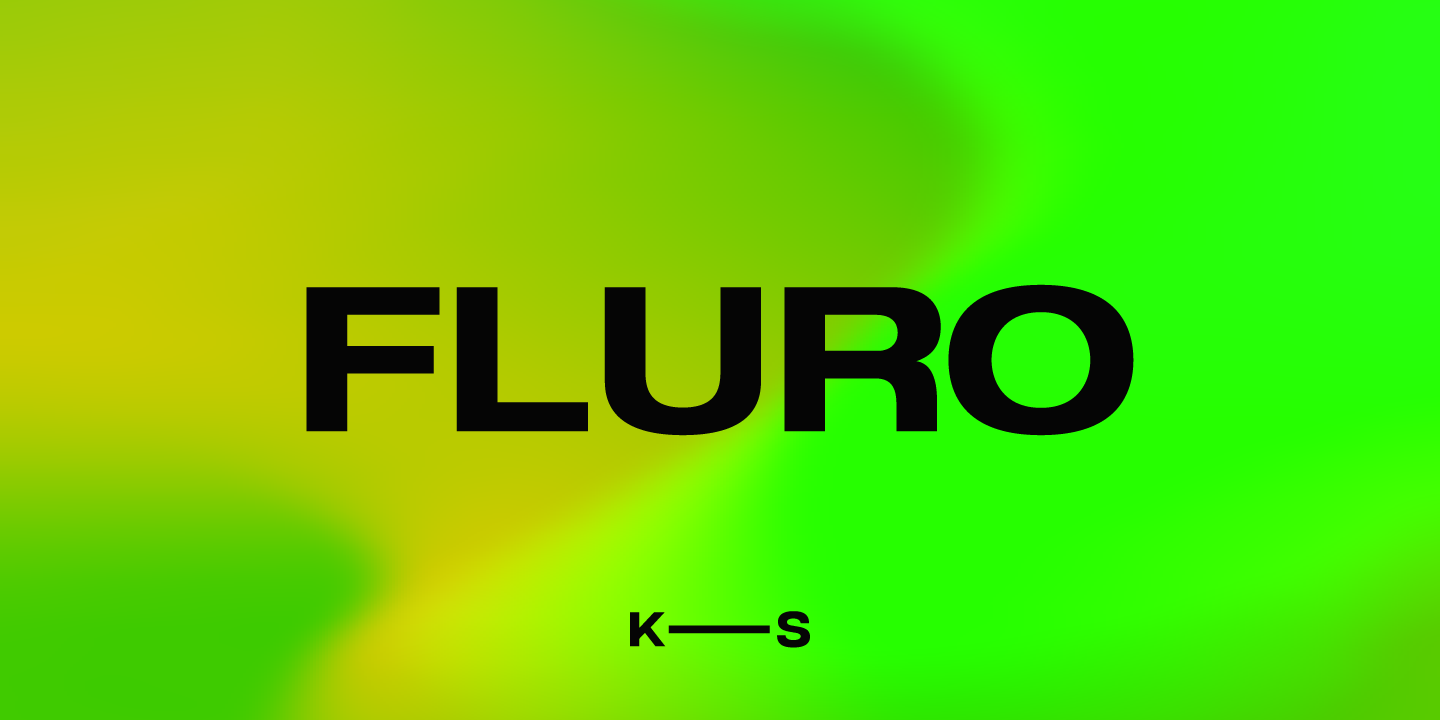
Fluro Font is ideal for nightclub posters, electronic music festival branding, neon signage design, gaming interfaces, tech startup logos, cyberpunk movie titles, LED display graphics, party event flyers, futuristic product packaging, and vibrant digital advertising campaigns.
What makes Fluro Font exciting is its electrifying energy and futuristic appeal that instantly captures attention with its bold, luminous character. This dynamic typeface features sharp, geometric letterforms that seem to glow with neon intensity, creating a striking visual impact reminiscent of city lights and digital displays. The font's cutting-edge design perfectly embodies the spirit of modern technology and nightlife culture, making it essential for brands wanting to project innovation and excitement.
The Fluro Font family includes high-impact variations: Regular, Bold, Condensed, Extended, Outline, and Glow Effect versions. Each style maintains the core electric aesthetic while providing different levels of intensity and visual drama. The complete family offers designers powerful tools for creating attention-grabbing headlines and dynamic brand identities across various media platforms.